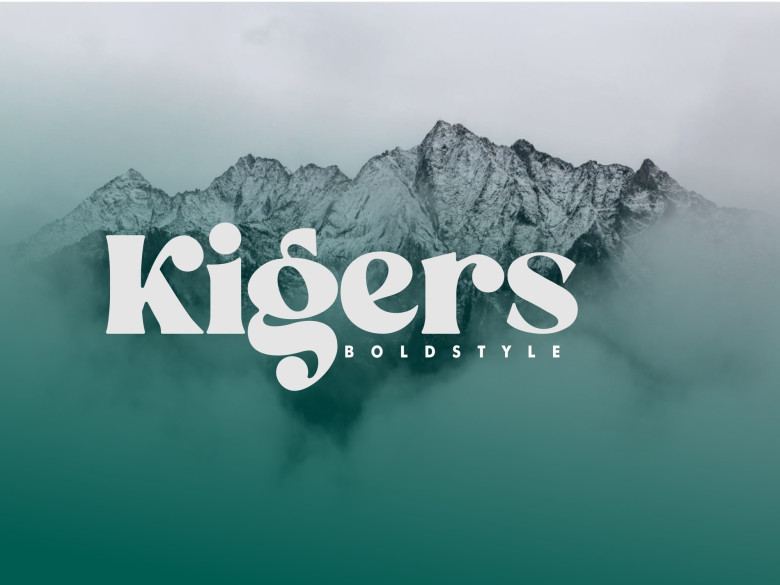
Kigers Font
Kigers is an eye-catching, thick typeface designed to help create engaging and whimsical designs. Ideal for packaging and branding projects, this font exudes fun with every stroke while drawing in every eye that passes by it.
Kigers Serif Font